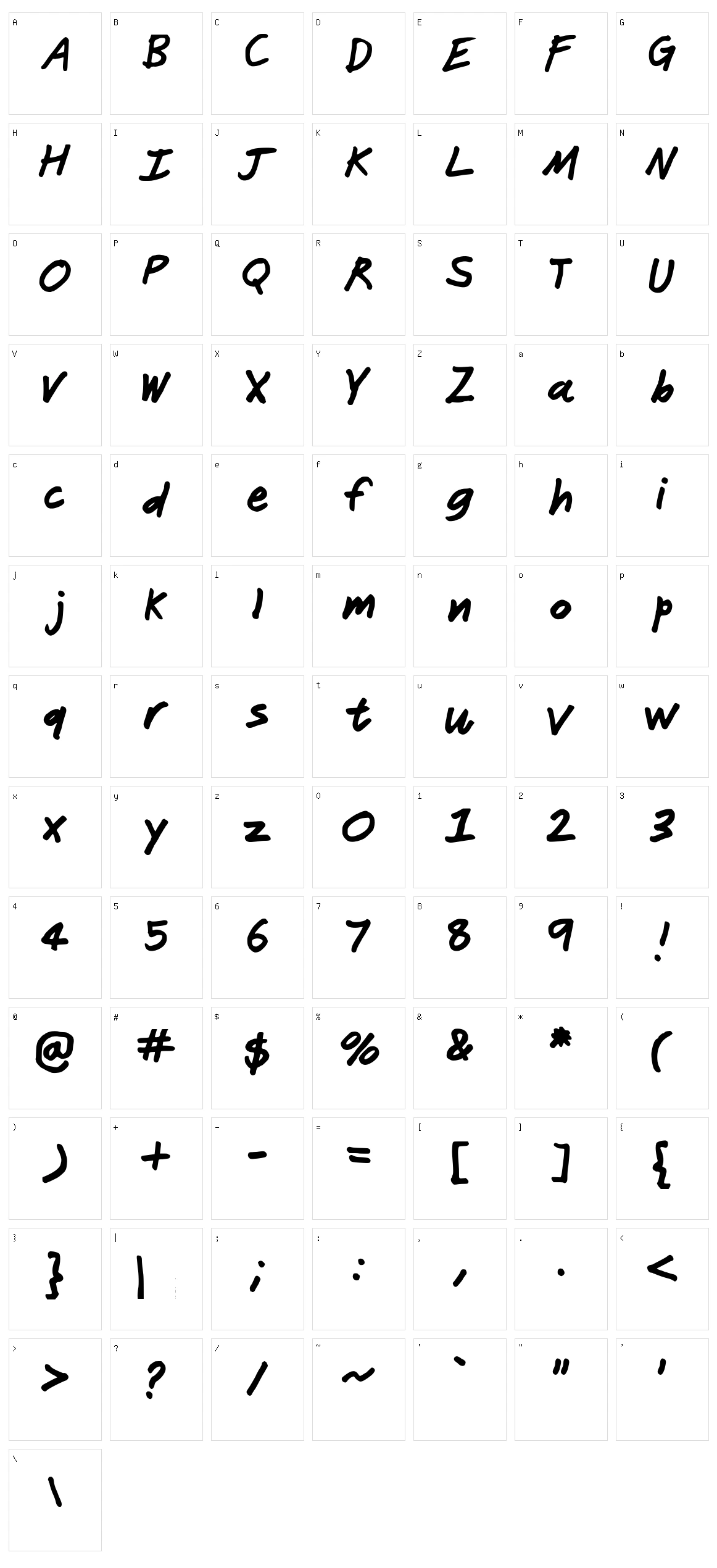
Janitor Font
The Janitor font is a font created with a permanent marker, MyScriptFont.com and FontLab Studio 5. Like all other JLH Fonts, this font is in the public domain and it comes with the Euro sign.